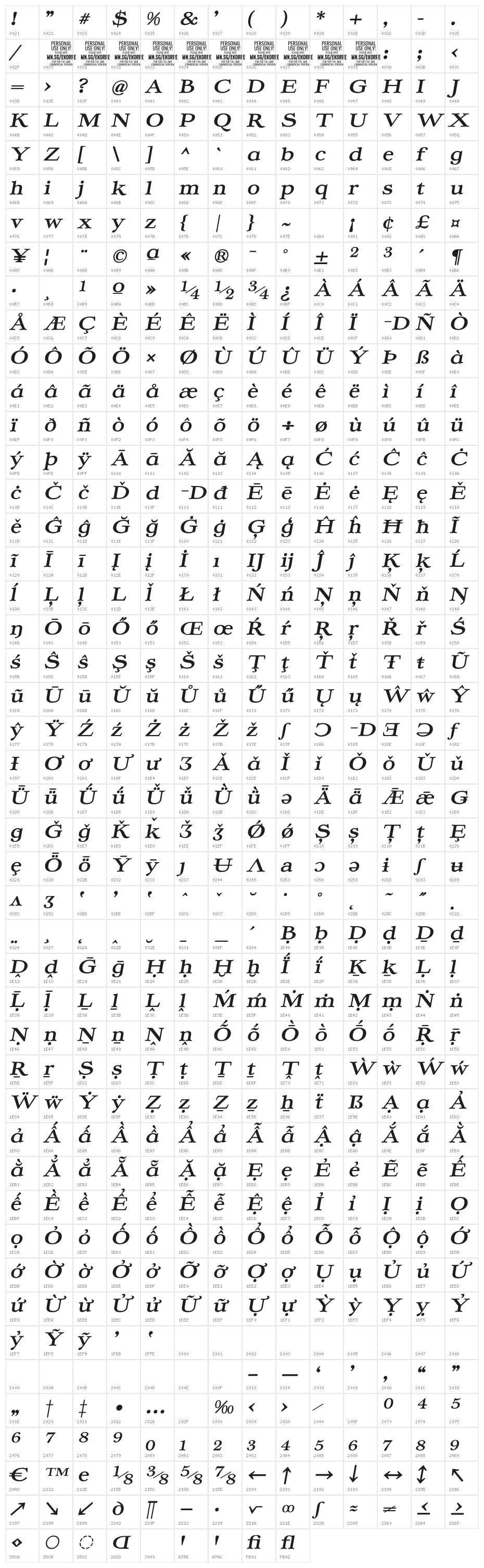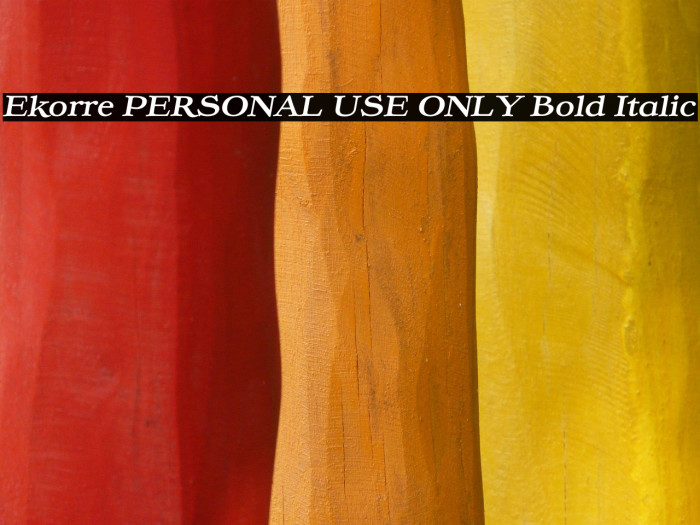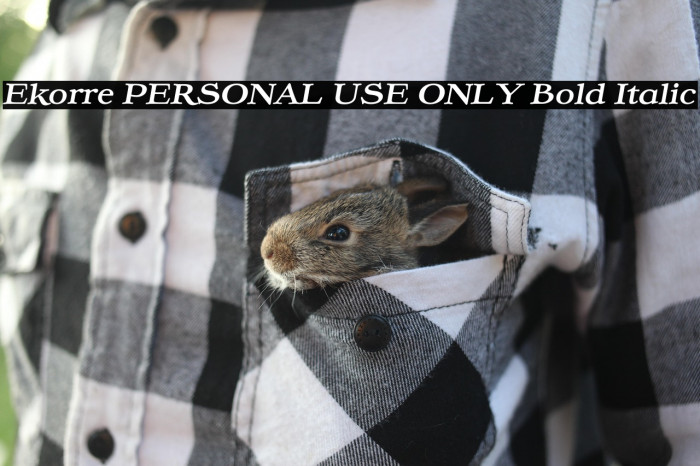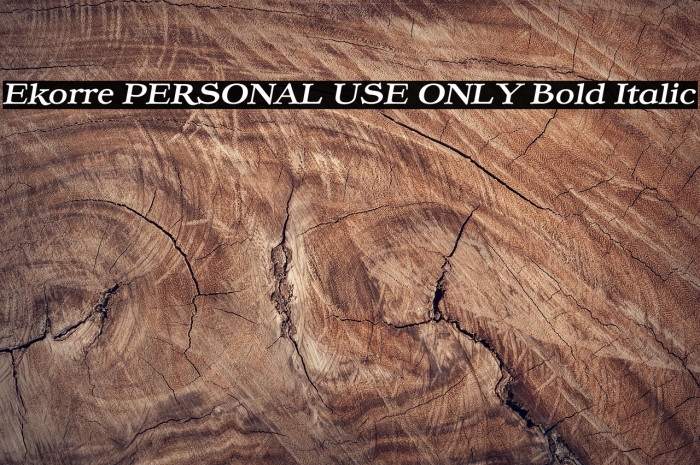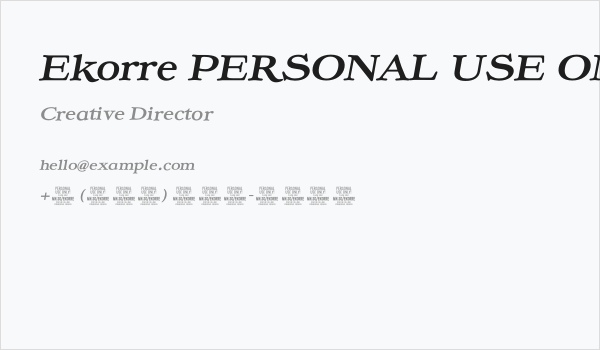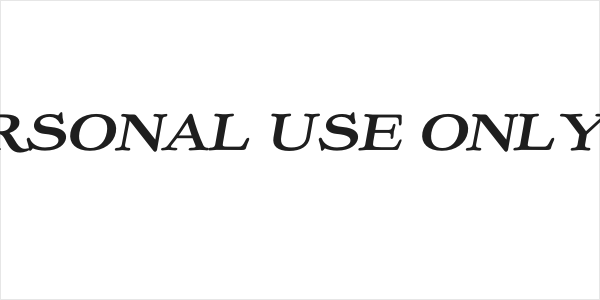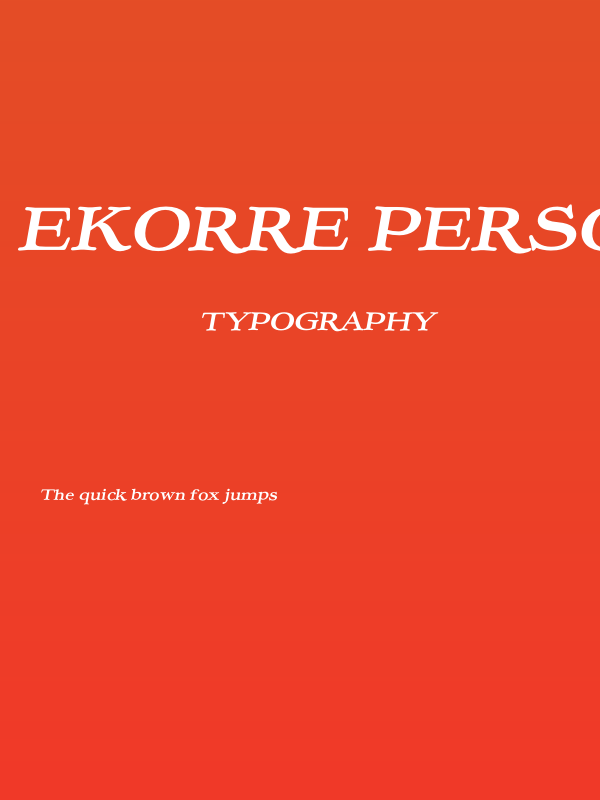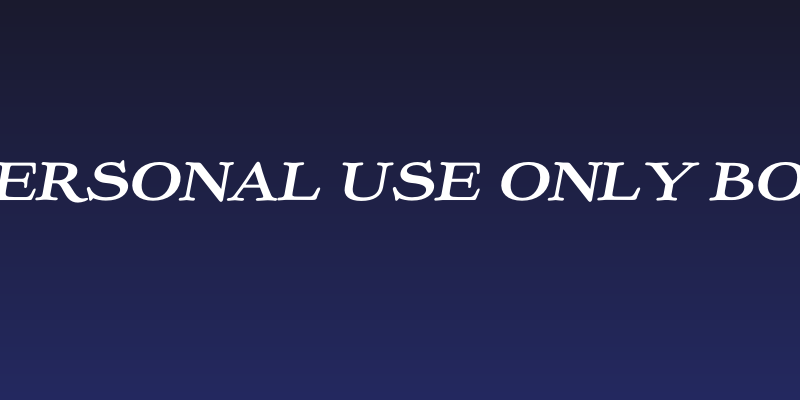
Ekorre PERSONAL USE ONLY Bold Italic Font
Ekorre PERSONAL USE ONLY Bold Italic Description
This font exhibits a classic serif style with a bold and italicized appearance, giving it a dynamic and elegant look. The characters are well-defined with a slight slant, enhancing the italic effect. The serifs are pronounced, adding a touch of sophistication and formality. The uppercase letters maintain a strong presence, while the lowercase letters are slightly more rounded, providing a balanced contrast. The numerals and special characters are consistent with the overall style, ensuring uniformity across different text elements. This font is suitable for projects that require a blend of traditional and modern aesthetics.
| Use Case | Headlines, Logos, Editorial design |
| Proposed Projects | Ideal for use in formal invitations, book covers, branding materials, and editorial design. |